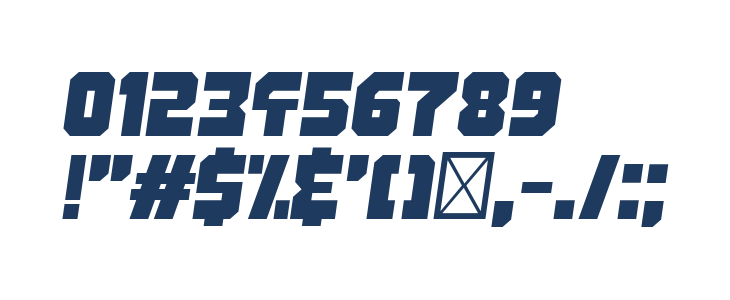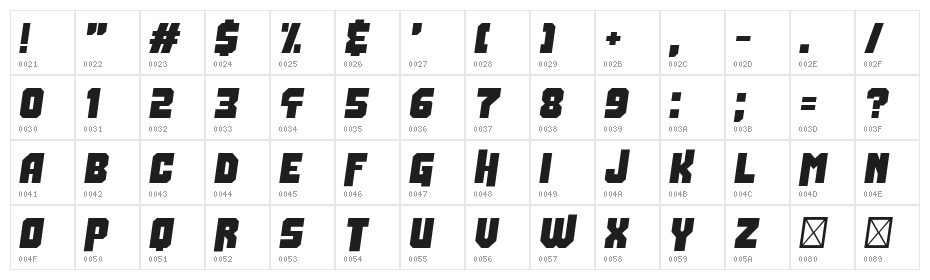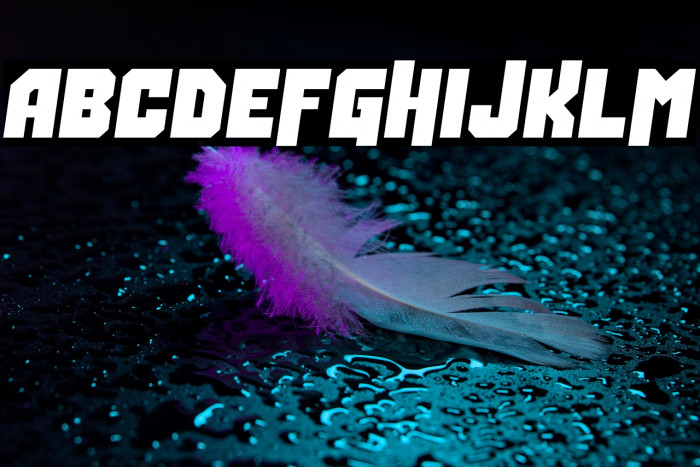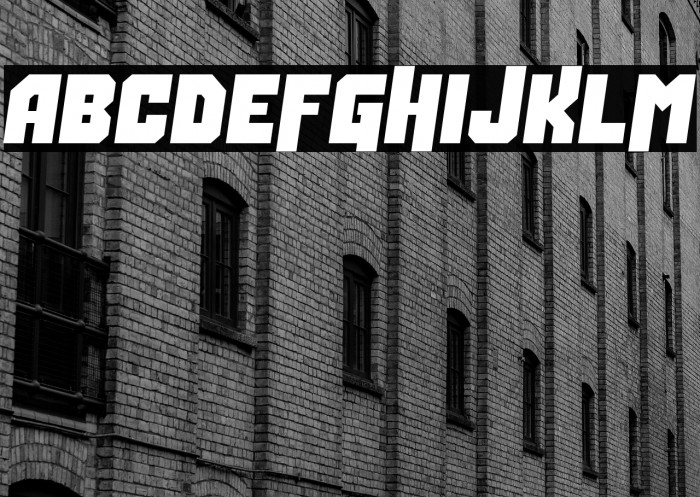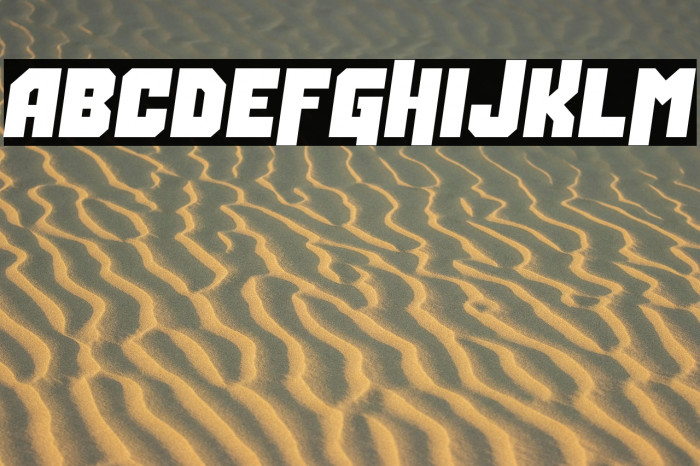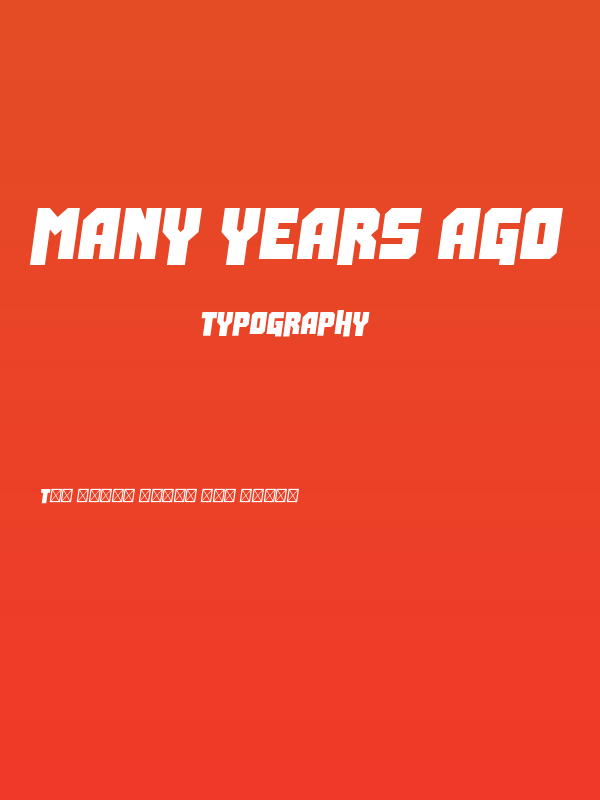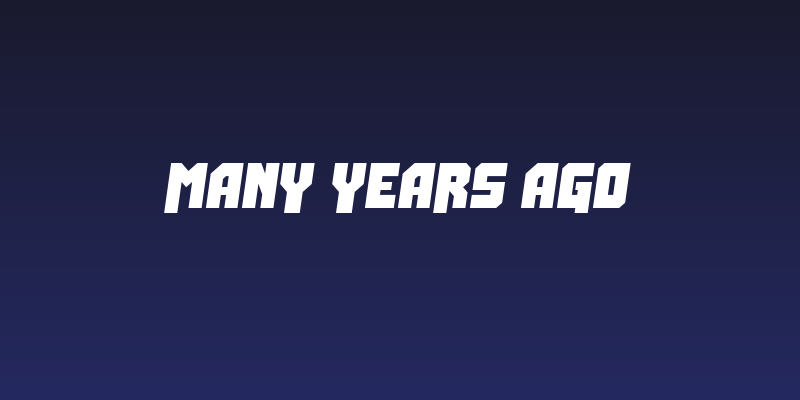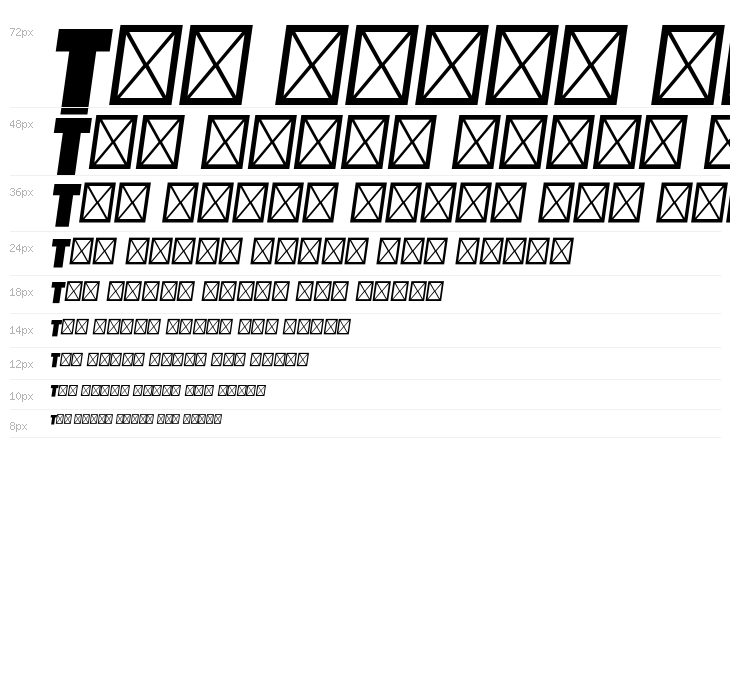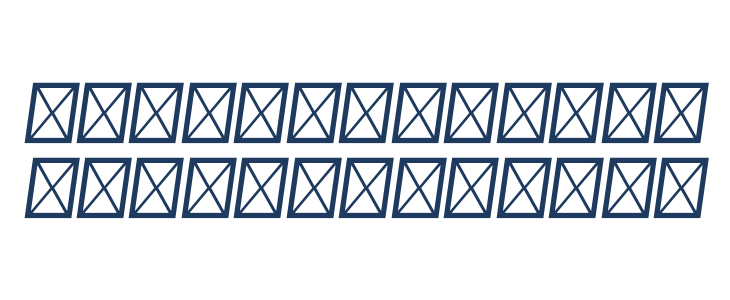
Many Years Ago Font
Many Years Ago Description
This font features a bold and angular design, characterized by its sharp edges and geometric shapes. The uppercase and lowercase letters maintain a consistent style, with a strong emphasis on vertical and horizontal lines. The numbers and special characters follow the same bold and structured aesthetic, making the font highly cohesive. Its distinct and modern appearance makes it suitable for attention-grabbing designs. The font's boldness and angularity give it a futuristic and dynamic feel, perfect for projects that require a strong visual impact.
Proposed ProjectsIdeal for sports branding, video game titles, posters, and futuristic designs.